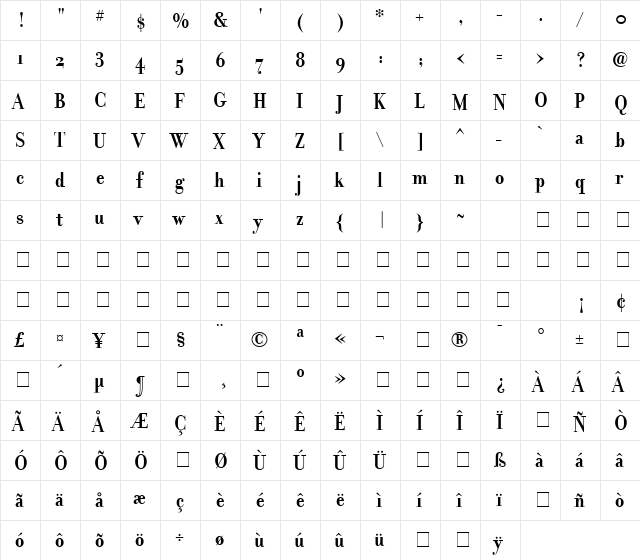
FilosofiaGrandBold Grand Bold
Design Context for FilosofiaGrandBold Typeface
FilosofiaGrandBold is a composed and adaptable typeface that performs quietly and consistently across a wide range of design contexts. The heavy weight commands attention and anchors typographic hierarchies.